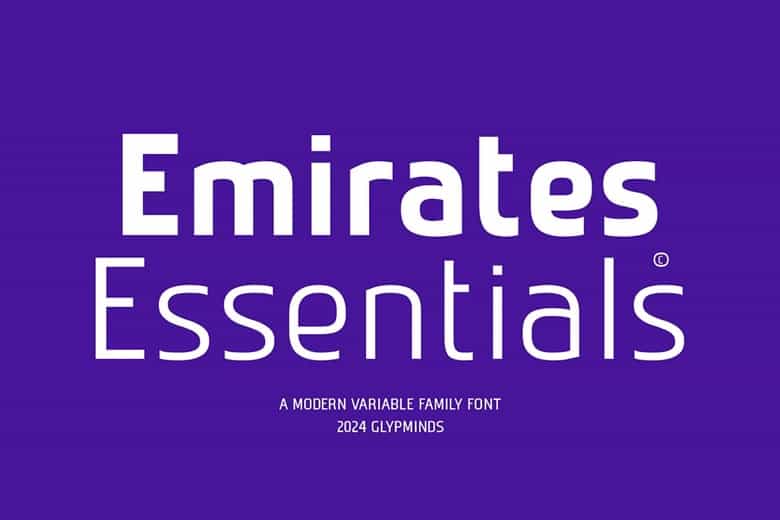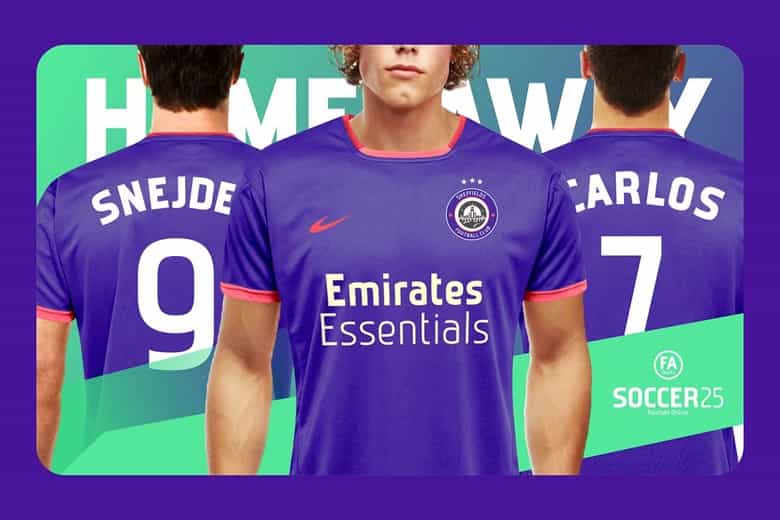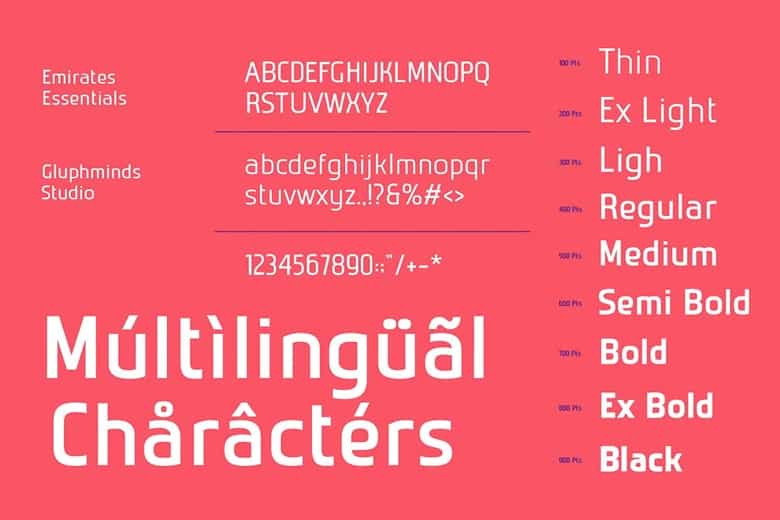
Emirates Essentials is a new elegant and contemporary sans serif family typeface that comes with variable font with 9 weights for flexibility. This font is sleek with great legibility, and is perfect for branding, Apps, packaging and editorial design.